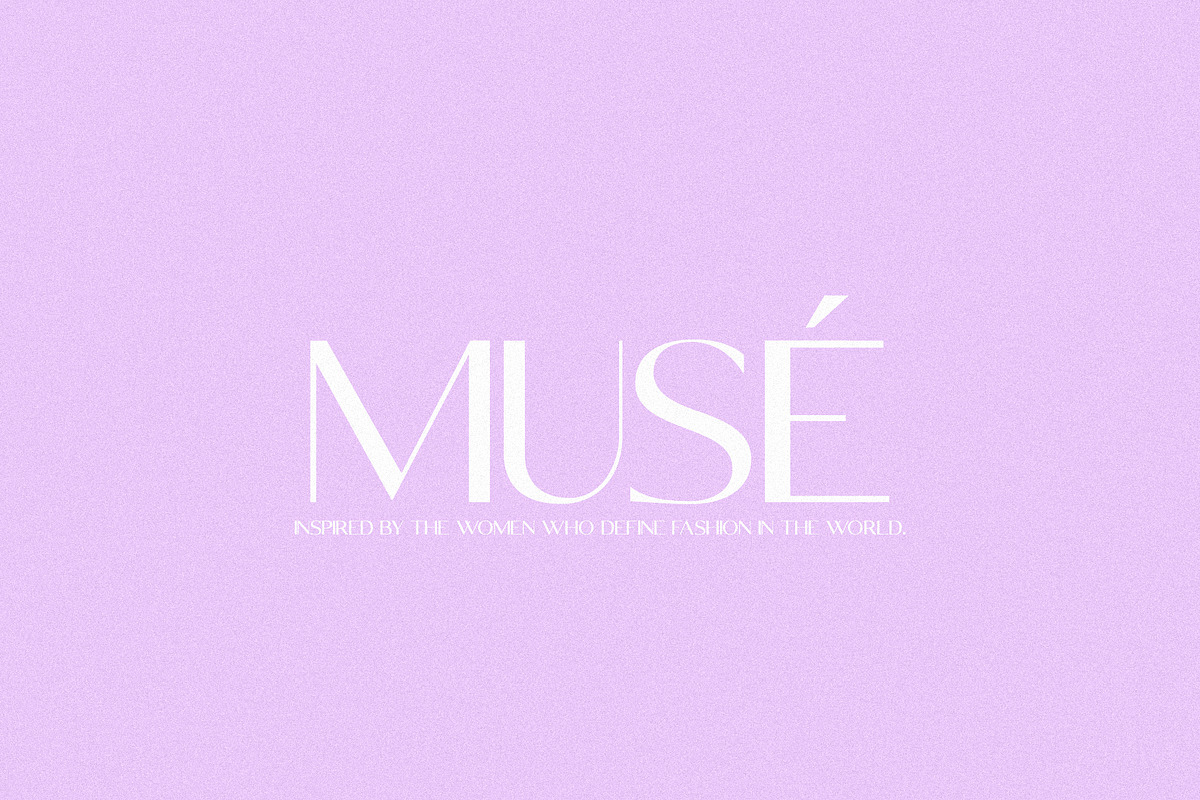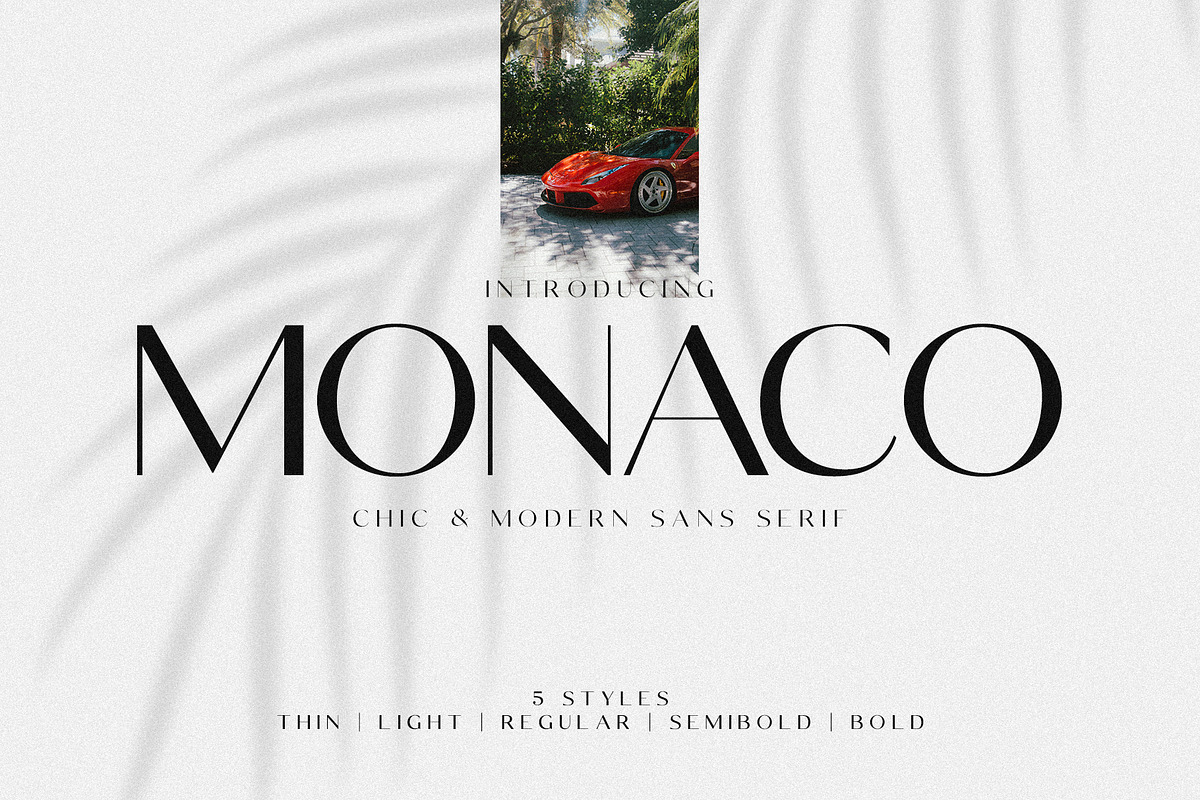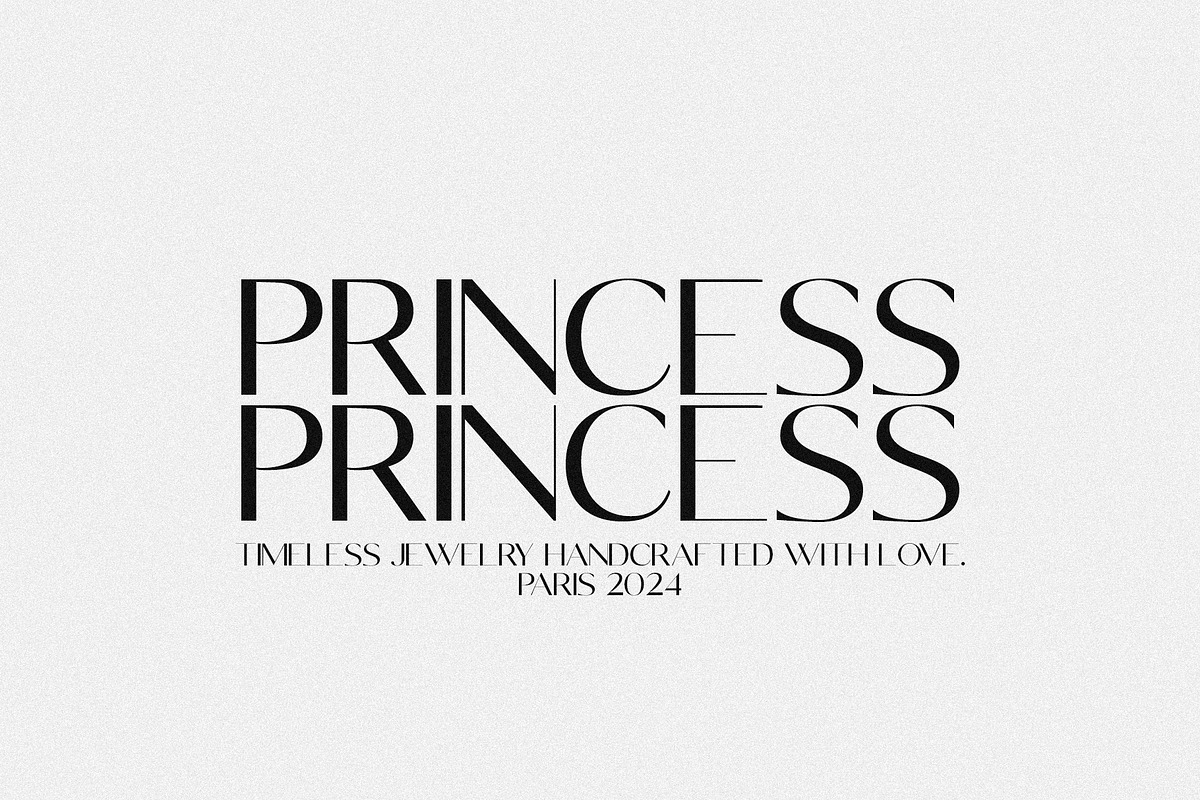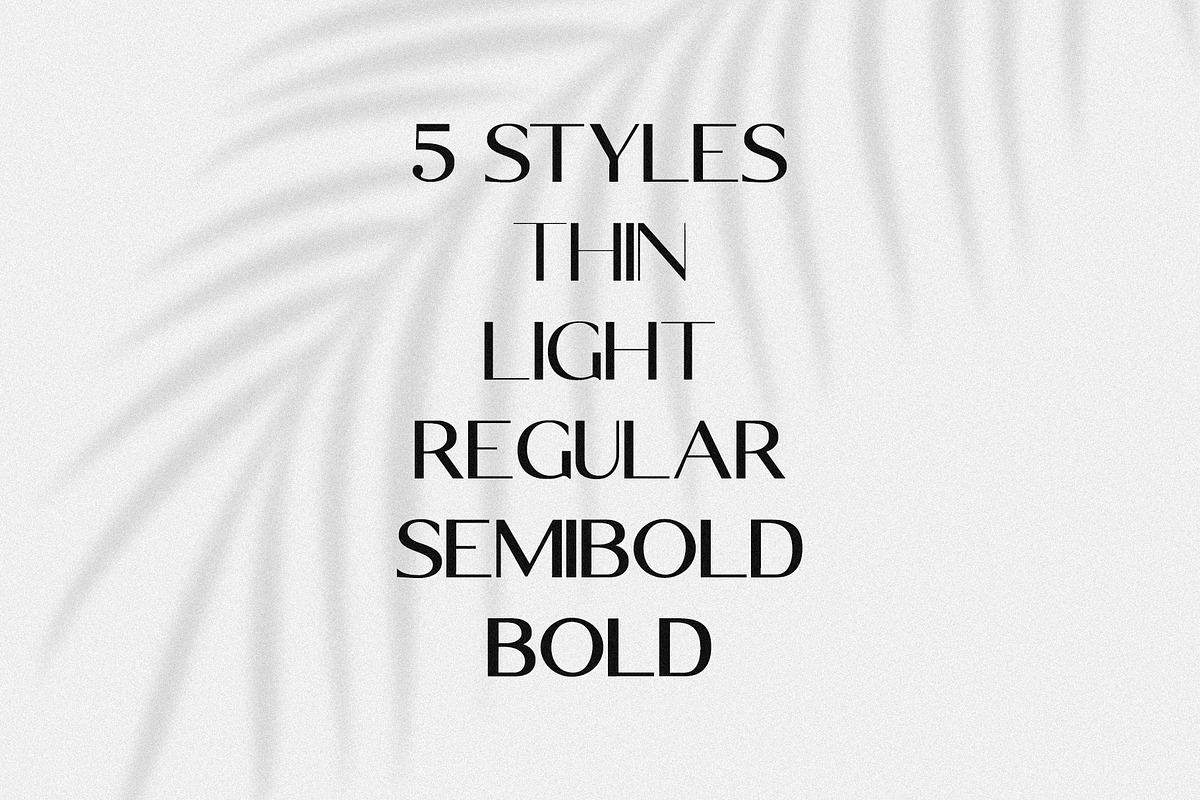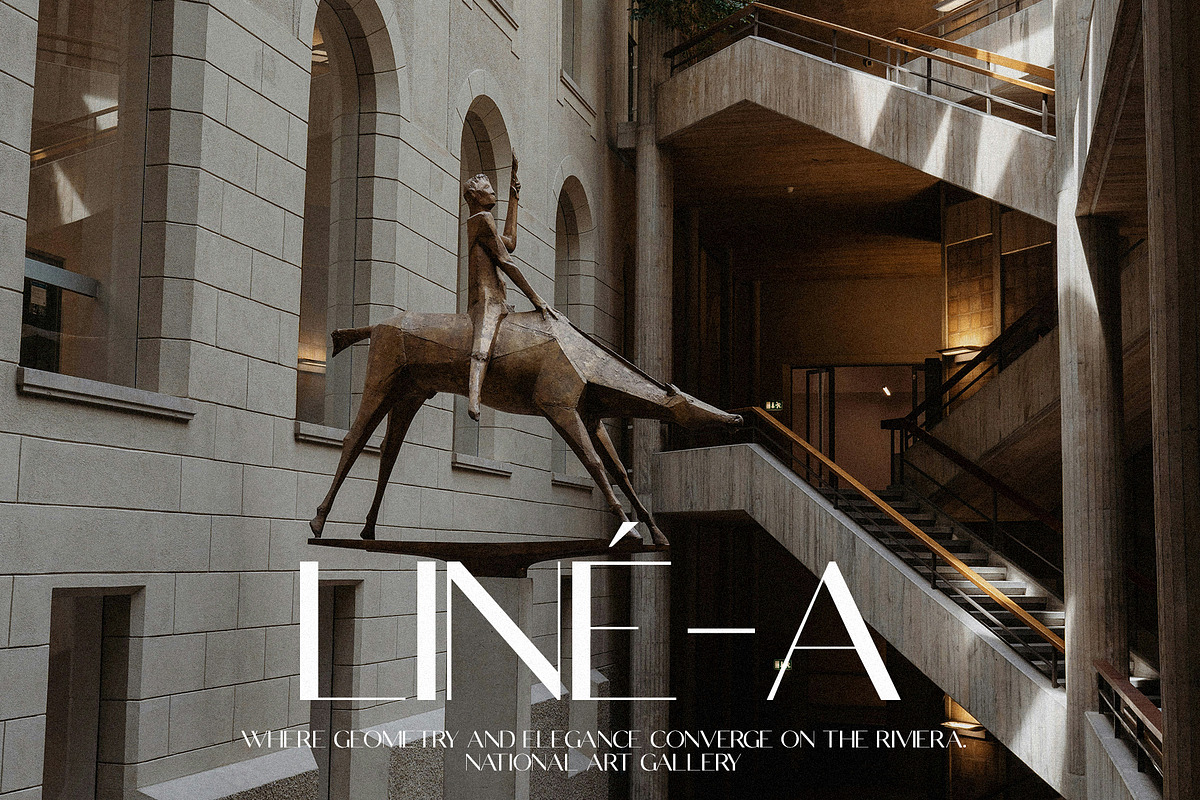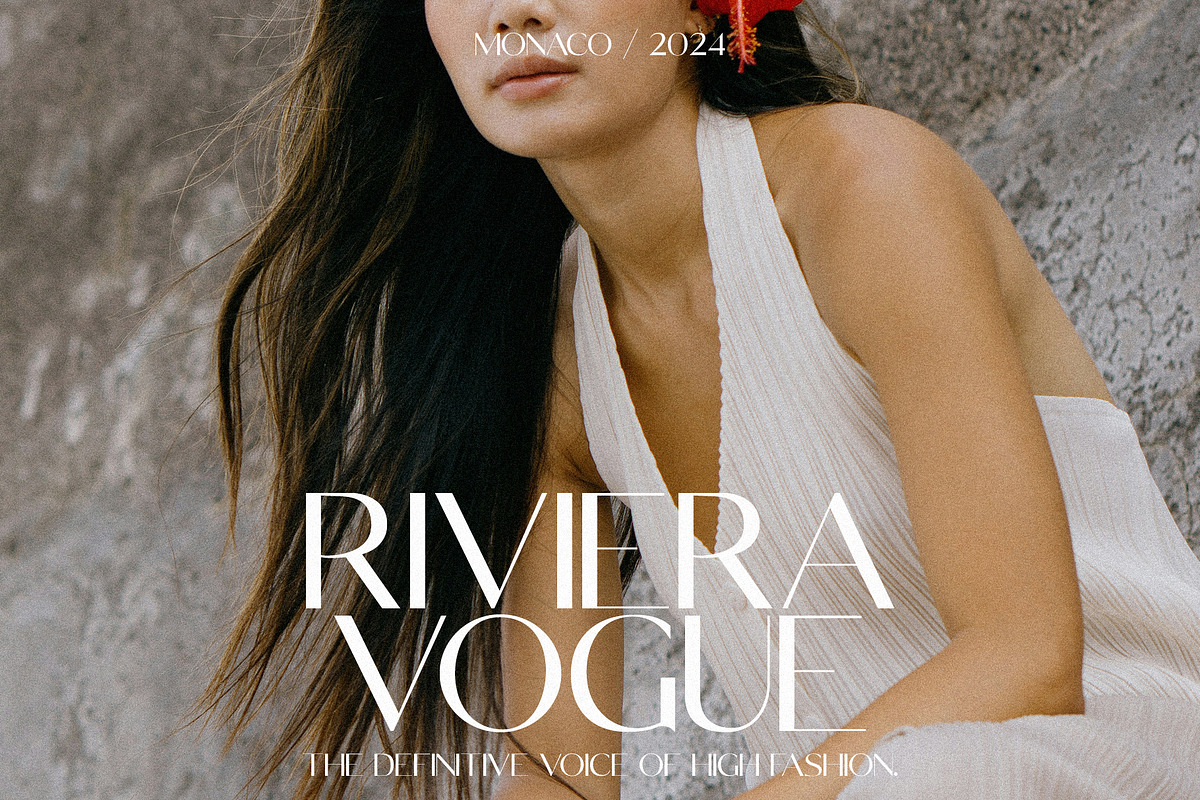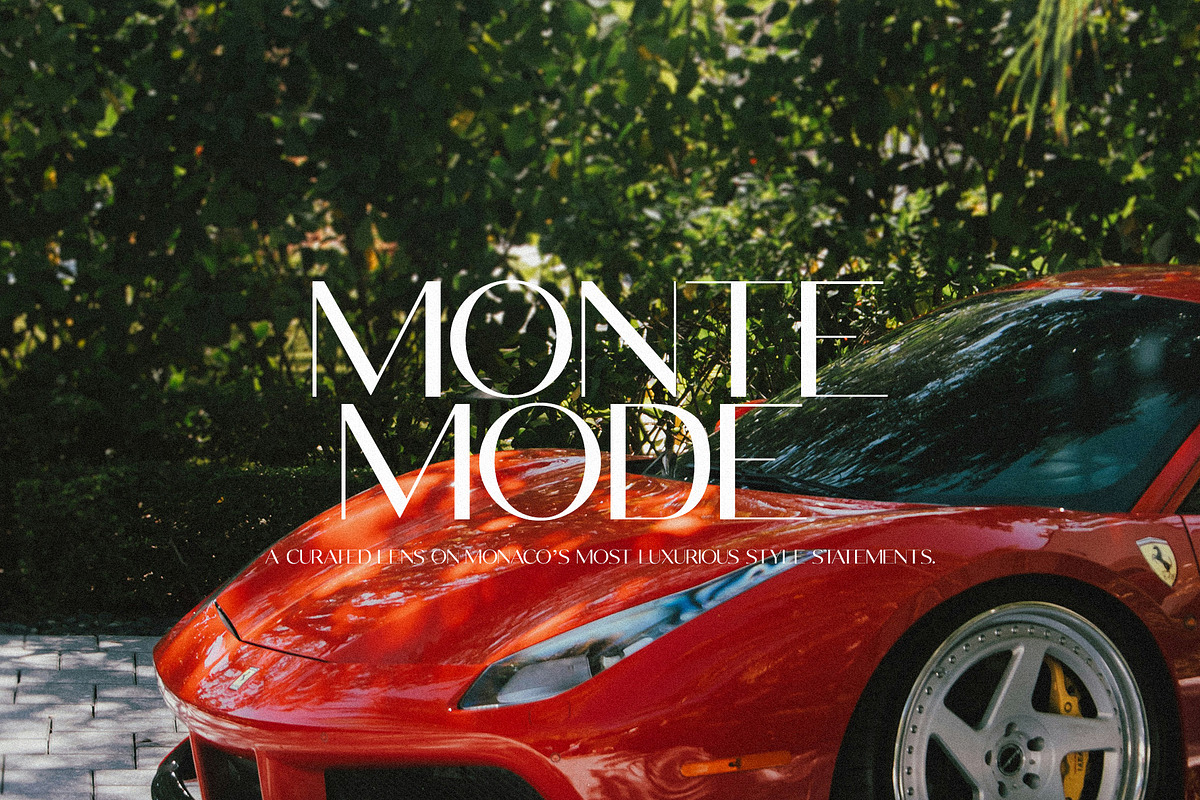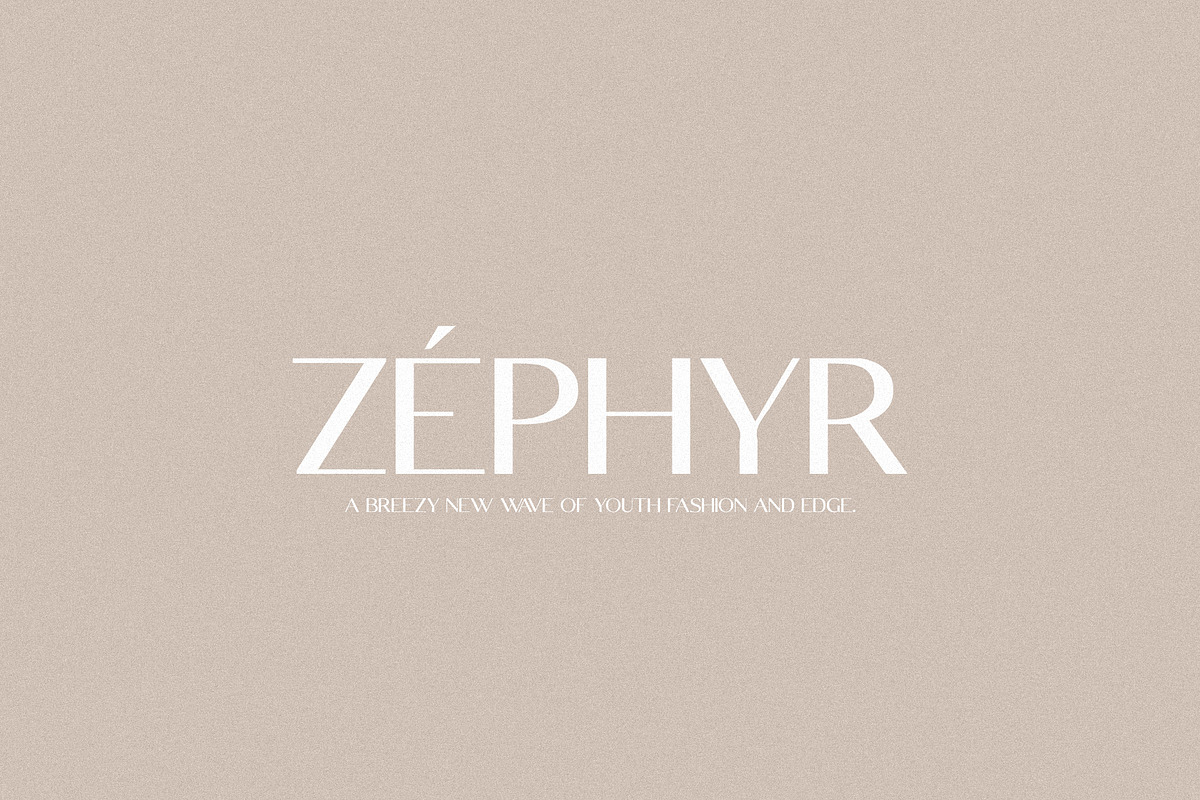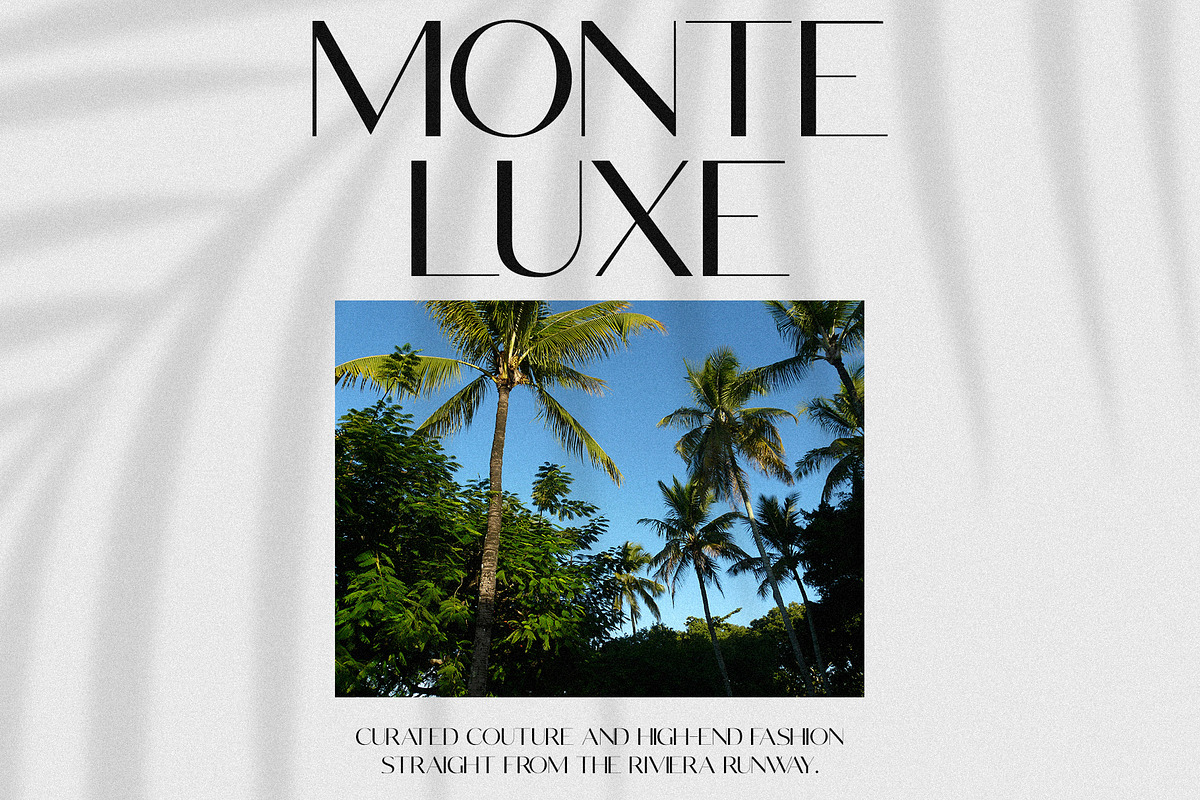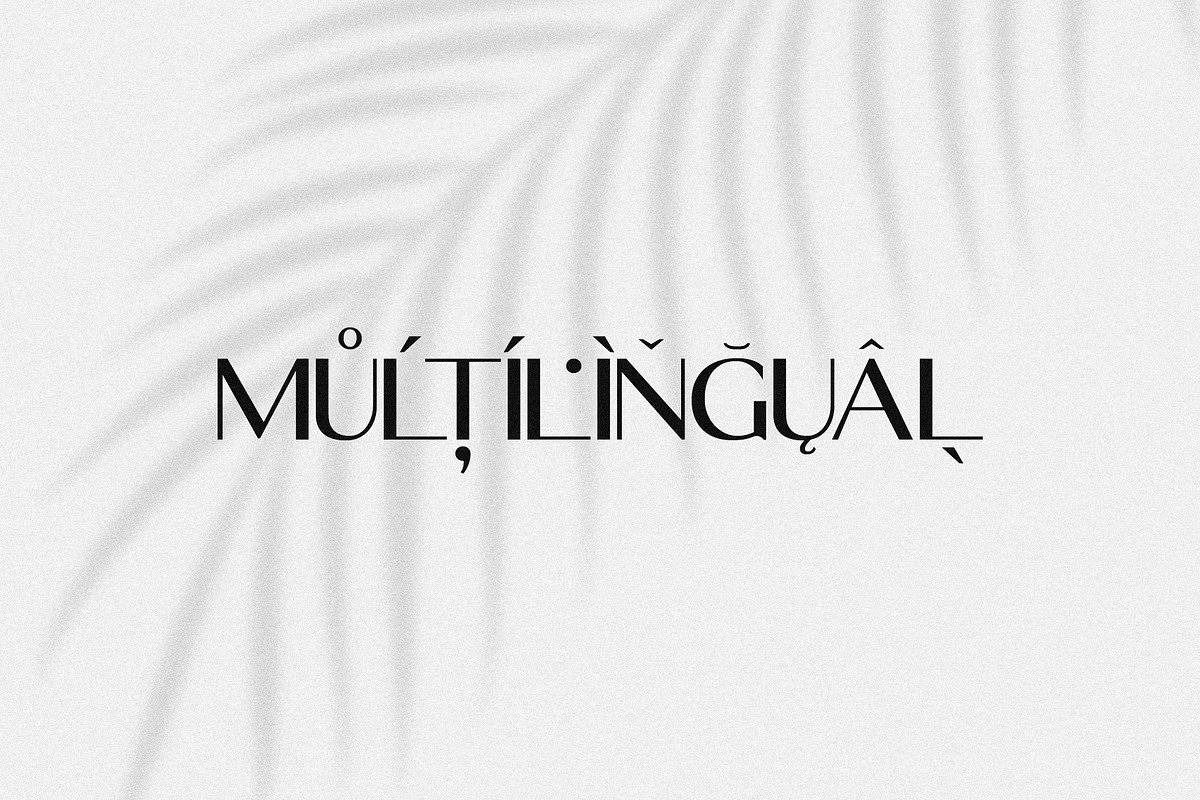
Monaco - Chic & Modern Sans Serif
Monaco is a sleek and stylish sans serif typeface that embodies modern sophistication. With its clean lines and refined curves, it's ideal for luxury branding, fashion editorials, minimalist logos, and contemporary design projects. Monaco includes 5 styles: Thin, Light, Regular, Semibold, Bold.